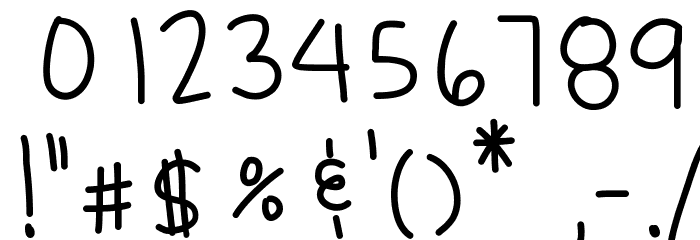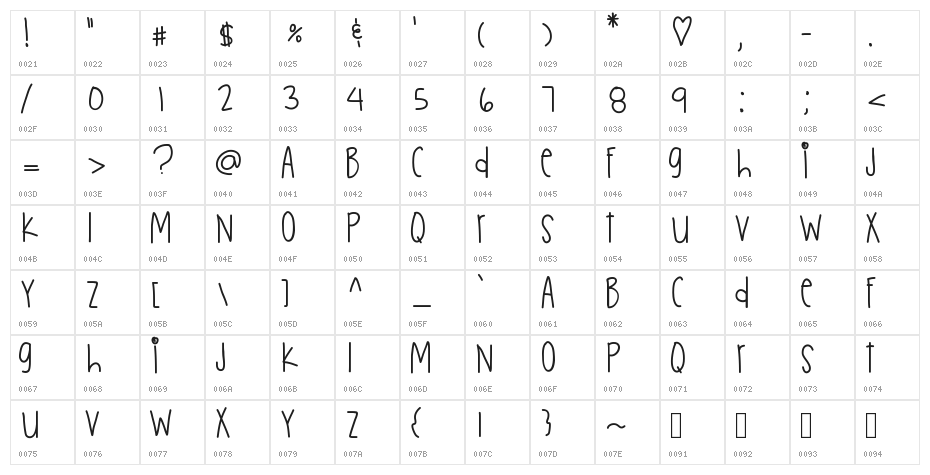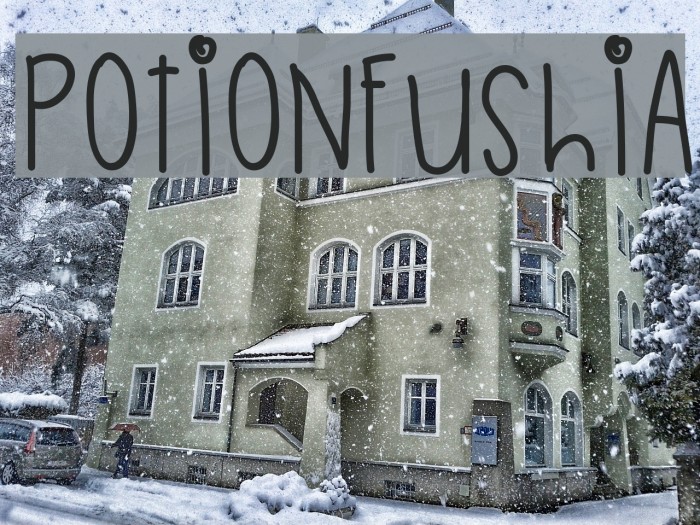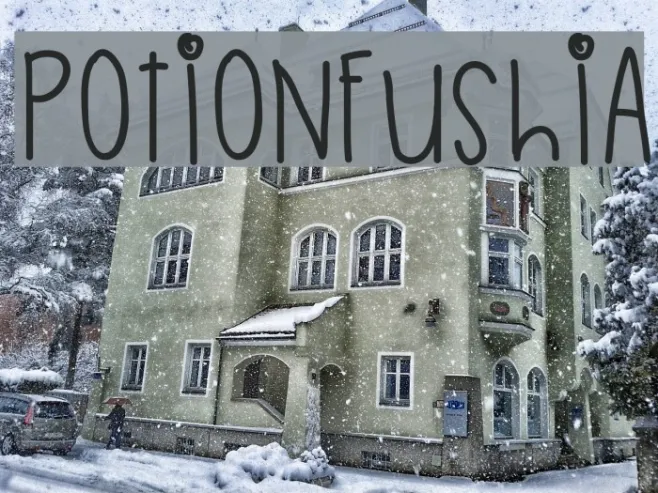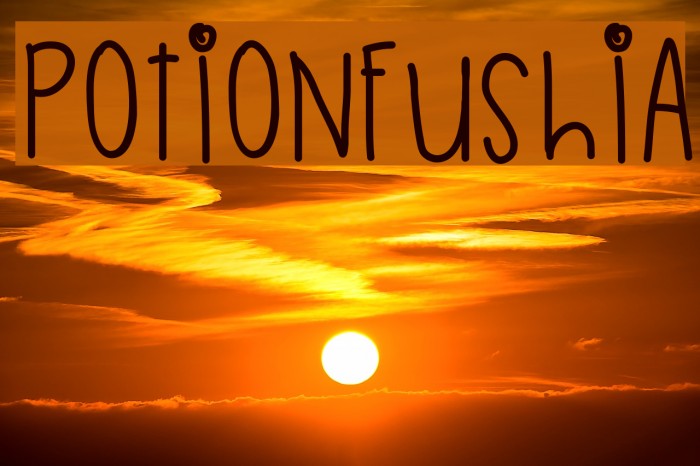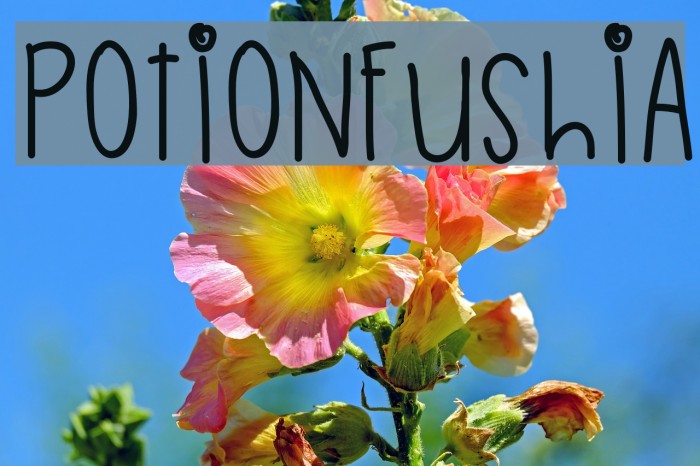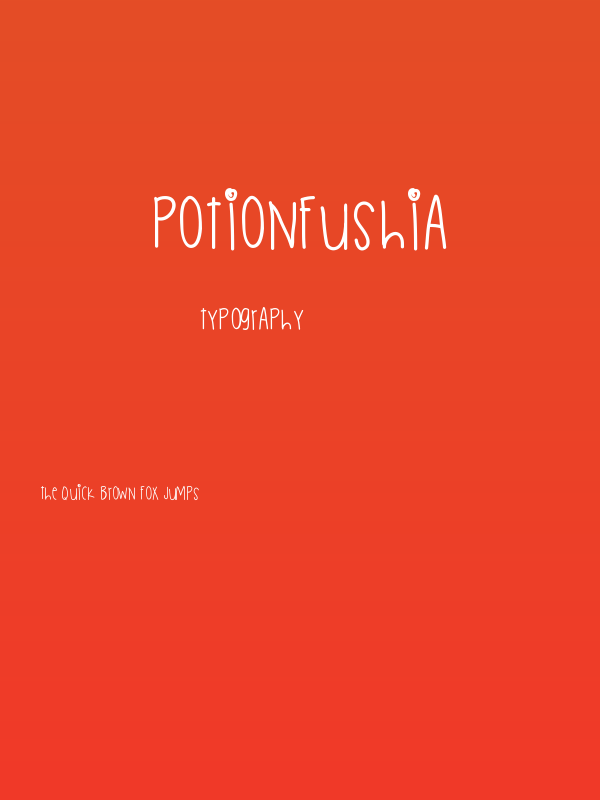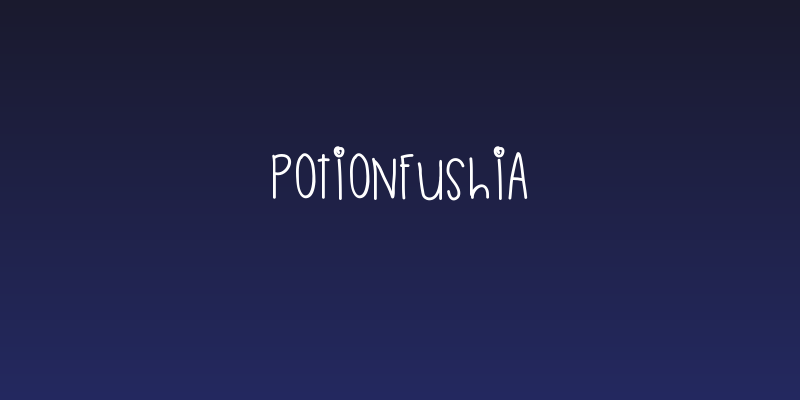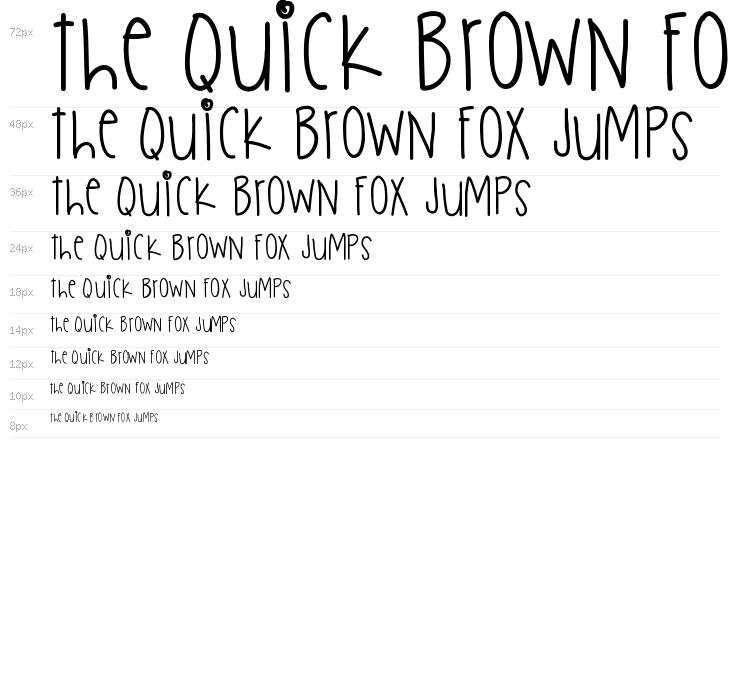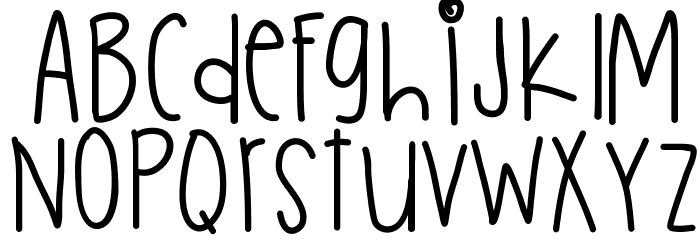
PotionFushia Font
PotionFushia Description
This font features a playful and whimsical style, characterized by its hand-drawn appearance. The letters are tall and narrow with a slightly uneven baseline, giving it a casual and informal look. The strokes are consistent in width, contributing to a uniform appearance despite the quirky design. The characters have a friendly and approachable feel, making them suitable for creative and fun projects. The font includes a full set of uppercase and lowercase letters, numbers, and a variety of special characters, ensuring versatility in use.
| Proposed Projects | Ideal for children's books, greeting cards, playful branding, and social media graphics. |